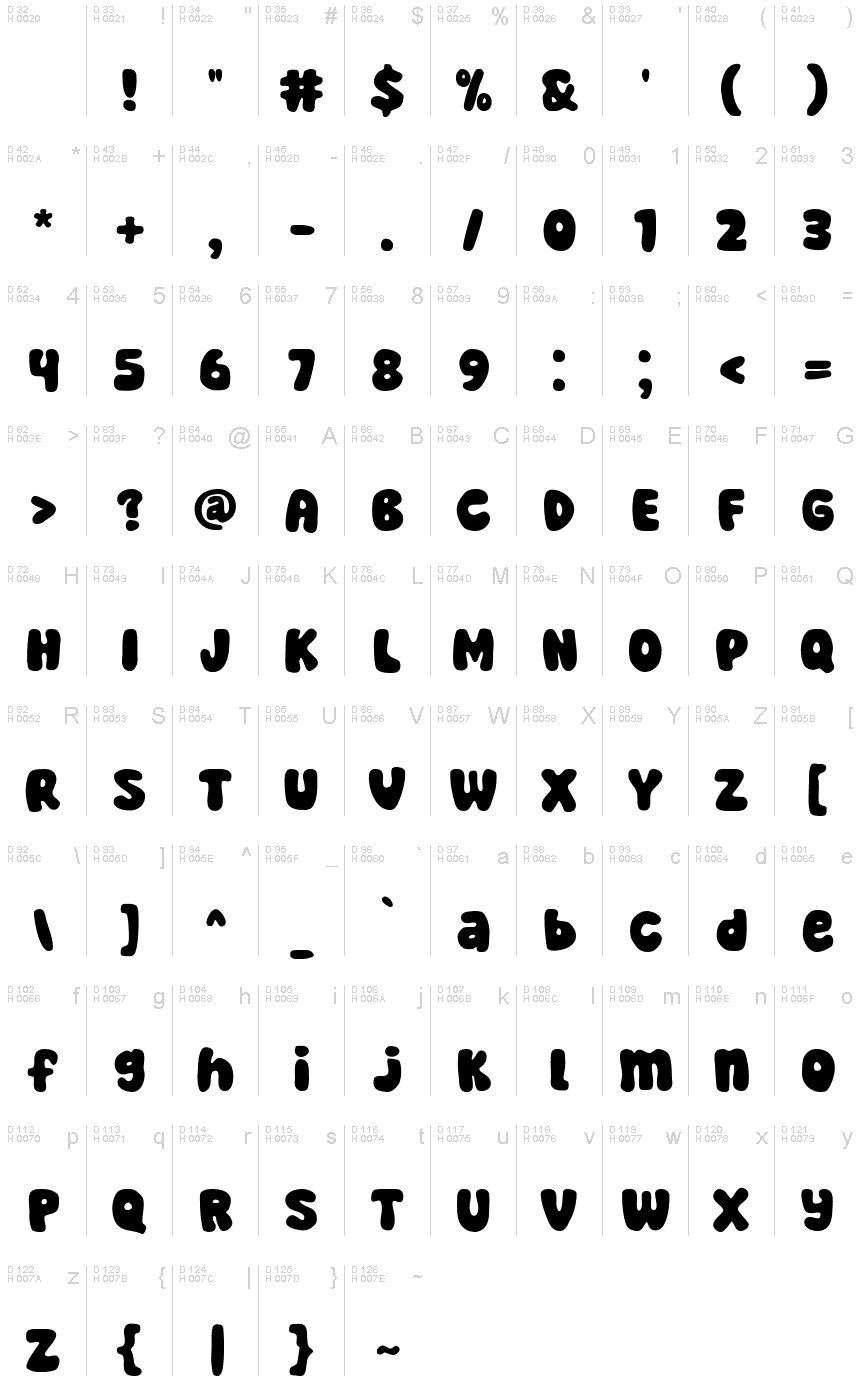
Super Enjoy, a playful masterpiece crafted by fsuarez913, embodies the cheerful spirit of cartoon aesthetics through its display font design. With an extra-bold weight, this typeface exudes confidence and friendliness, ideal for grabbing attention and injecting personality into any creative work. Its rounded contours and buoyant shapes convey a sense of fun and whimsy, making it perfectly suited for projects that aim to delight and engage audiences of all ages.
Whether applied to children's books, animated movie titles, or vibrant brand packaging, Super Enjoy promises to add an element of joy and lightheartedness. The font's boldness ensures high readability even from a distance, while its cartoon style provides a versatile canvas for color and creativity. Super Enjoy is not just a typeface-it's an invitation to smile with every word set in this charmingly spirited font.
Super Enjoy